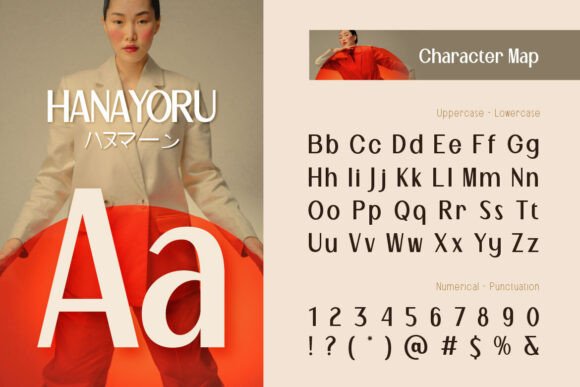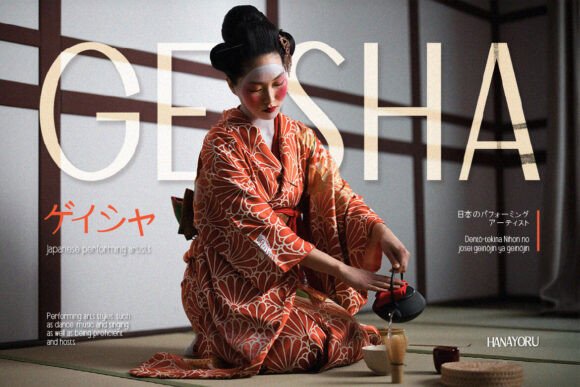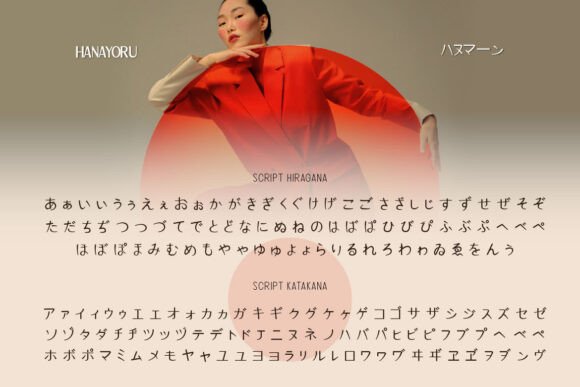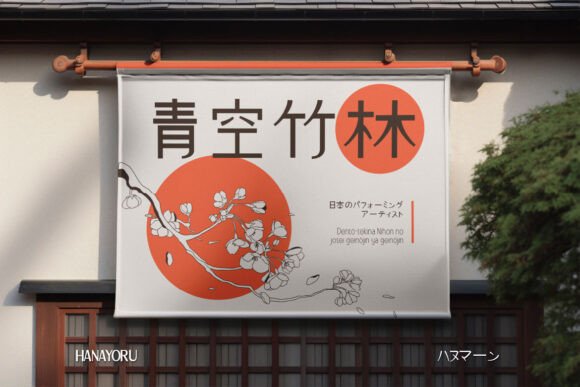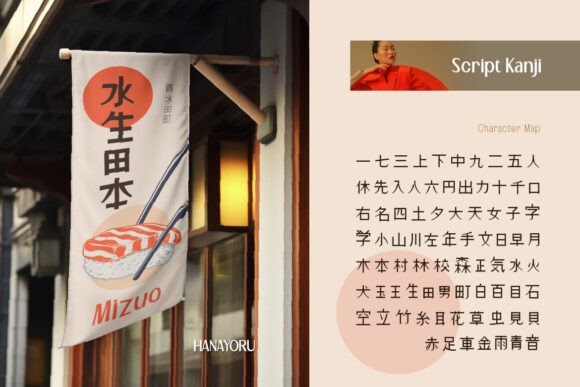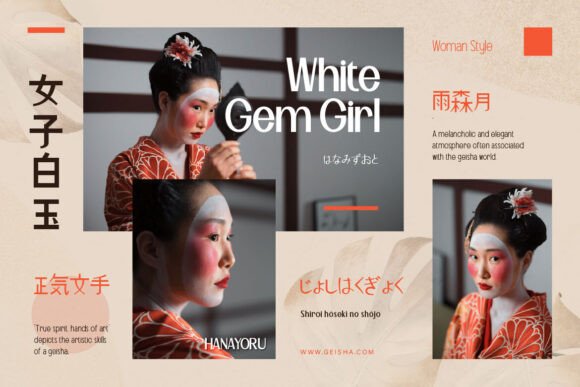
Introducing Hanayoru Font: A Harmonious Blend of Modern Typography and Traditional Japanese Aesthetics
In the world of typography, fonts play a crucial role in conveying the tone and personality of a brand or design. For designers and crafters seeking a typeface that embodies elegance, sophistication, and cultural heritage, Hanayoru Font is an exceptional choice. This refined display font seamlessly merges modern typography with traditional Japanese aesthetics, making it perfect for luxury branding, editorial design, fashion, and cultural projects.
Design Characteristics of Hanayoru Font
Hanayoru Font boasts clean, structured letterforms that exude a sense of refinement and poise. The typeface features subtle ligatures, which add a touch of sophistication and uniqueness to the characters. The font’s design is characterized by:
- Clean and structured letterforms: Hanayoru’s letterforms are meticulously crafted to convey a sense of elegance and harmony.
- Subtle ligatures: The font’s ligatures add a touch of sophistication and uniqueness to the characters, making it perfect for designs that require a high level of typographic refinement.
- Support for Hiragana, Katakana, and Kanji characters: Hanayoru Font supports a wide range of Japanese characters, making it an excellent choice for designs that require a high level of linguistic accuracy.
Perfect for Luxury Branding and Editorial Design
Hanayoru Font is an excellent choice for luxury branding and editorial design projects that require a high level of typographic sophistication. The font’s elegant and refined design makes it perfect for:
- Luxury branding: Hanayoru Font is ideal for luxury brands seeking to convey a sense of elegance, sophistication, and refinement.
- Editorial design: The font’s clean and structured letterforms make it perfect for editorial design projects, such as magazines, newspapers, and books.
- Fashion design: Hanayoru Font’s subtle ligatures and elegant design make it an excellent choice for fashion design projects, such as clothing labels, magazines, and advertisements.
- Cultural projects: The font’s support for Hiragana, Katakana, and Kanji characters makes it perfect for cultural projects, such as museum exhibitions, cultural festivals, and educational materials.
Why Choose Hanayoru Font?
Hanayoru Font offers a unique combination of modern typography and traditional Japanese aesthetics, making it an exceptional choice for designers and crafters. Here are some reasons why you should choose Hanayoru Font:
- Elegance and sophistication: Hanayoru Font exudes elegance and sophistication in every character, making it perfect for designs that require a high level of typographic refinement.
- Cultural significance: The font’s support for Hiragana, Katakana, and Kanji characters makes it an excellent choice for designs that require a high level of linguistic accuracy and cultural sensitivity.
- Versatility: Hanayoru Font is perfect for a wide range of design projects, from luxury branding and editorial design to fashion and cultural projects.
In conclusion, Hanayoru Font is a refined and sophisticated display font that beautifully blends modern typography with traditional Japanese aesthetics. With its clean, structured letterforms, subtle ligatures, and support for Hiragana, Katakana, and Kanji characters, this typeface is perfect for designers and crafters seeking to convey elegance, sophistication, and cultural heritage in their designs. Whether you’re working on a luxury branding project, editorial design, fashion design, or cultural project, Hanayoru Font is an exceptional choice.